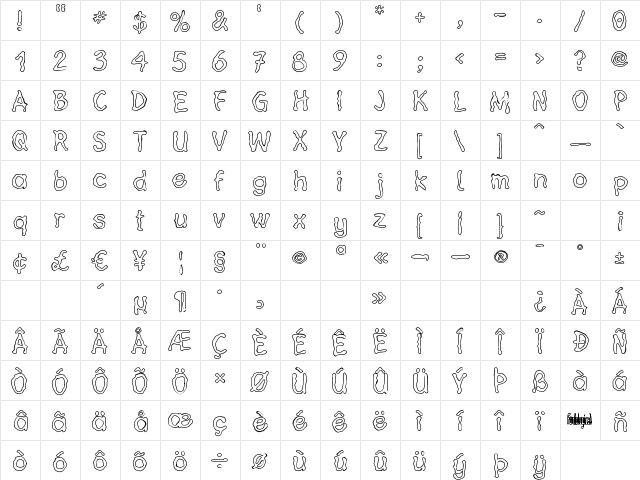
Heil Vertica Regula
Design Context for Heil Vertica Typeface
Heil Vertica is a composed and adaptable typeface that performs quietly and consistently across a wide range of design contexts.